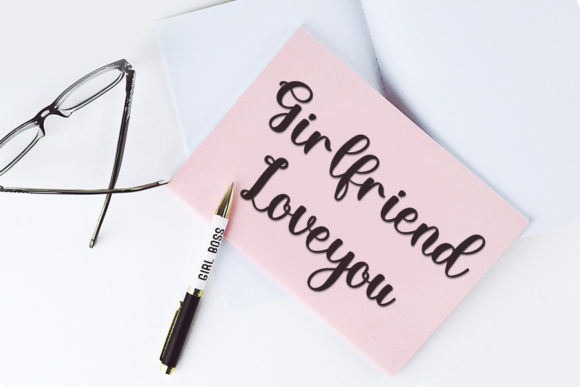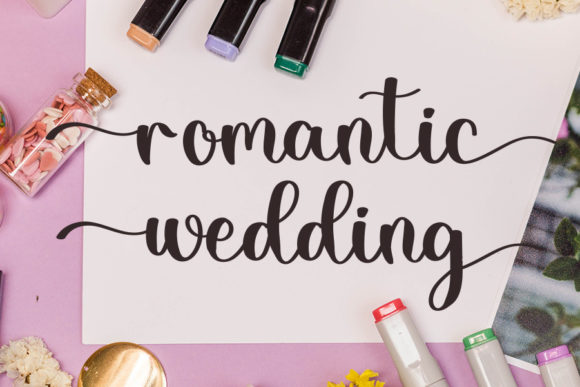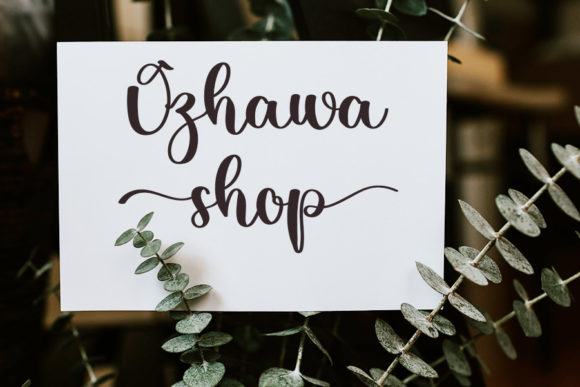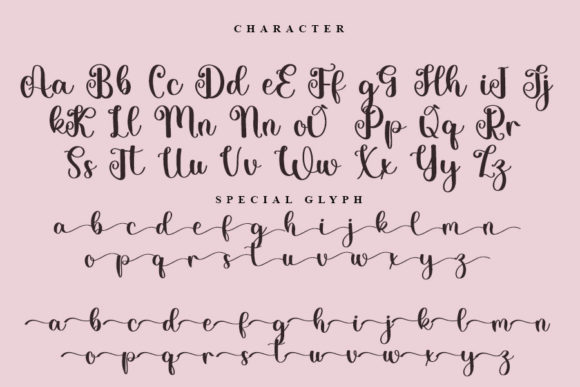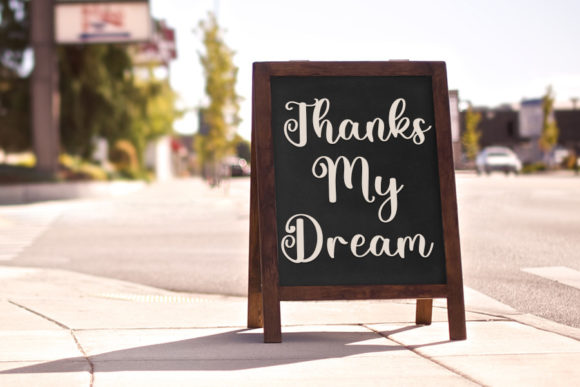
Bellisda Font: Elevate Your Design with Luxury and Elegance
In the world of typography, a font can make or break a design project. If you’re a designer or crafter looking for a unique and luxurious touch, look no further than the Bellisda Font. This beautiful, light handwritten font is sure to add a spark of elegance to any project you create.
The Unique Charm of Bellisda Font
Bellisda Font boasts a distinctive feel that sets it apart from other fonts. Its light, airy quality makes it perfect for designs that require a touch of sophistication and refinement. Whether you’re working on a branding project, a wedding invitation, or a packaging design, Bellisda Font is sure to make a stunning impact.
One of the standout features of Bellisda Font is its PUA (Private Use Area) encoding. This means that you can access all of the amazing glyphs and ligatures with ease, giving you a wide range of creative possibilities. With PUA encoding, you can unlock the full potential of the font and take your designs to the next level.
Bellisda Font is incredibly versatile, making it suitable for a wide range of design projects. Here are just a few ideas to get you started:
- Branding and logos: Use Bellisda Font to create a luxurious and memorable brand identity that will leave a lasting impression on your customers.
- Wedding invitations and stationery: Add a touch of elegance and sophistication to your wedding invitations, save-the-dates, and other stationery with Bellisda Font.
- Packaging design: Use Bellisda Font to create eye-catching packaging that will make your product stand out on store shelves.
- Social media graphics: Elevate your social media graphics with the luxurious feel of Bellisda Font.
Why Choose Bellisda Font?
With so many fonts available, why choose Bellisda Font? Here are just a few reasons why designers and crafters love this beautiful font:
- Unique and distinctive: Bellisda Font has a one-of-a-kind feel that will set your designs apart from the crowd.
- Elegant and sophisticated: This font exudes luxury and refinement, making it perfect for high-end designs.
- Easy to use: With PUA encoding, you can access all of the glyphs and ligatures with ease, making it simple to get started with your design project.
Tips for Using Bellisda Font
To get the most out of Bellisda Font, here are a few tips to keep in mind:
- Experiment with different sizes: Bellisda Font looks great in a range of sizes, from large headings to smaller body text.
- Play with color: This font looks stunning in a range of colors, from metallic gold and silver to rich jewel tones.
- Mix and match: Don’t be afraid to combine Bellisda Font with other fonts to create a unique and eye-catching design.